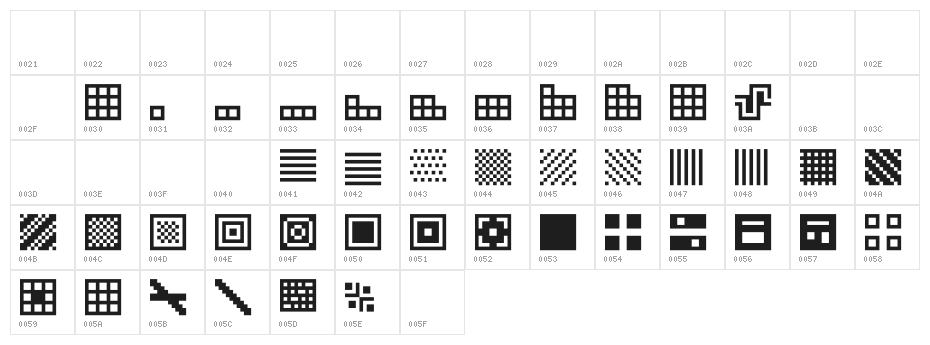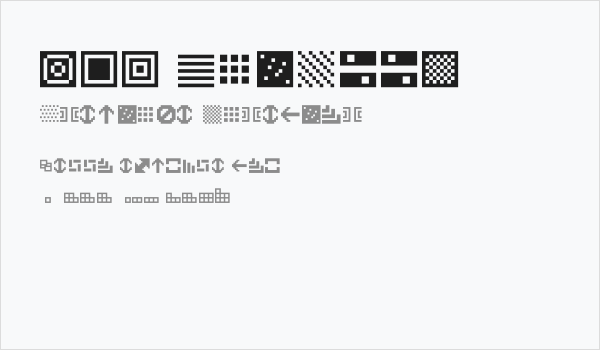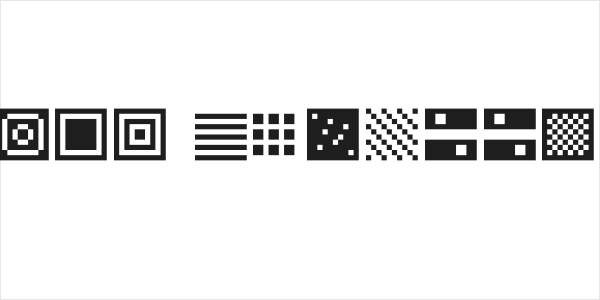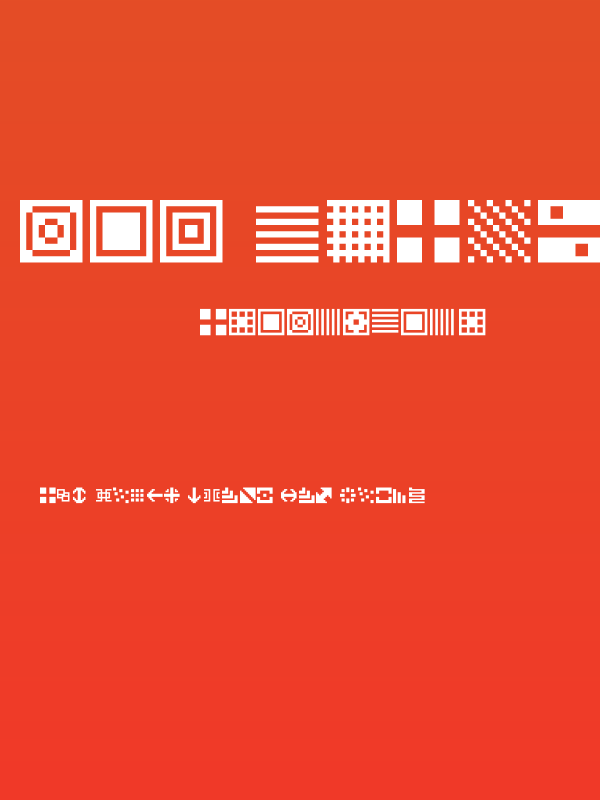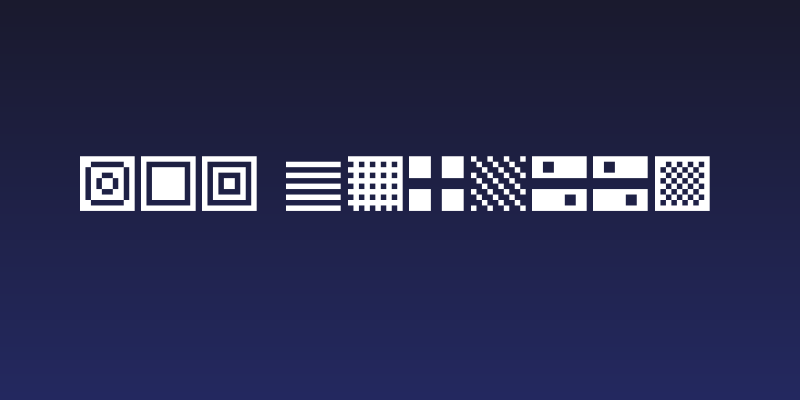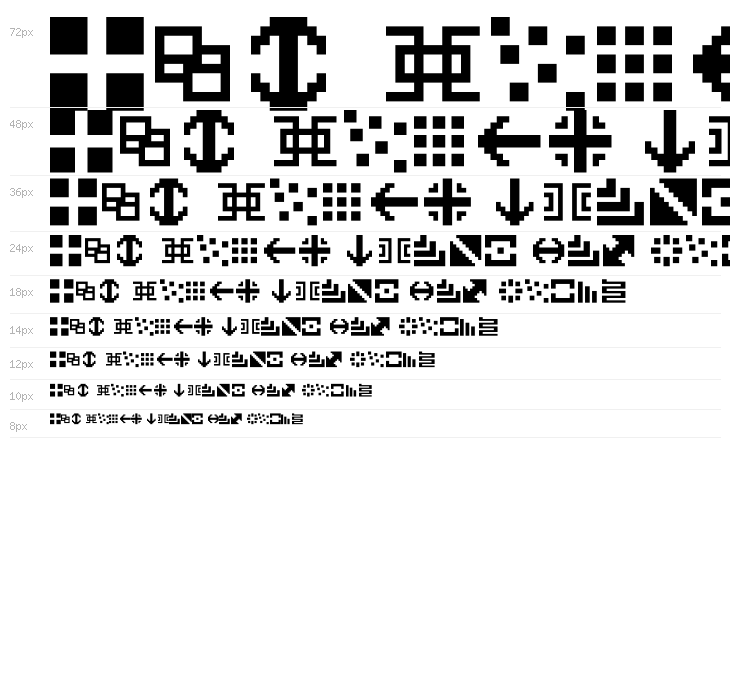
OPN BitFUUL Font
OPN BitFUUL Description
This design features a series of intricate, geometric patterns that resemble pixel art. Each character is composed of a grid-like structure, creating a highly stylized and abstract appearance. The patterns include a variety of shapes such as squares, circles, and arrows, each filled with smaller squares or lines. The style is reminiscent of digital or retro video game graphics, offering a unique and visually striking aesthetic. The characters are uniform in size, maintaining a consistent grid pattern throughout, which adds to the cohesive look of the design. This style is particularly suited for projects that aim to evoke a sense of nostalgia or digital artistry.
| Overall Style | Retro, Digital, Abstract |
| Use Case | Logos, Digital Art, Themed Graphics |
| Proposed Projects | Ideal for digital art projects, retro-themed designs, video game graphics, or any creative work that embraces a pixel art style. |